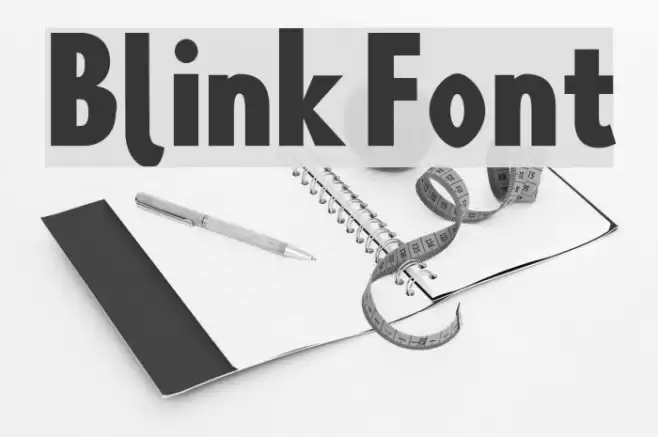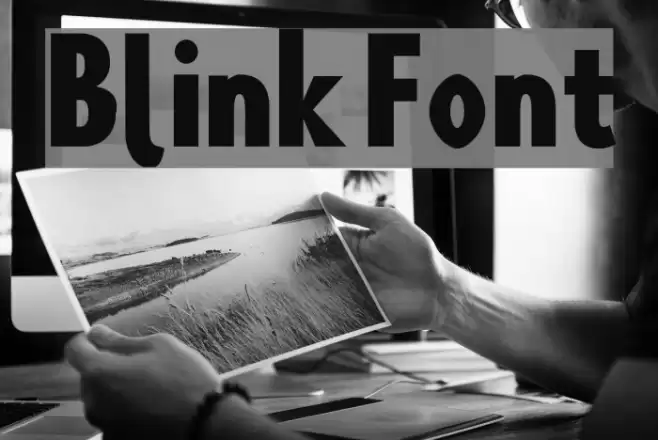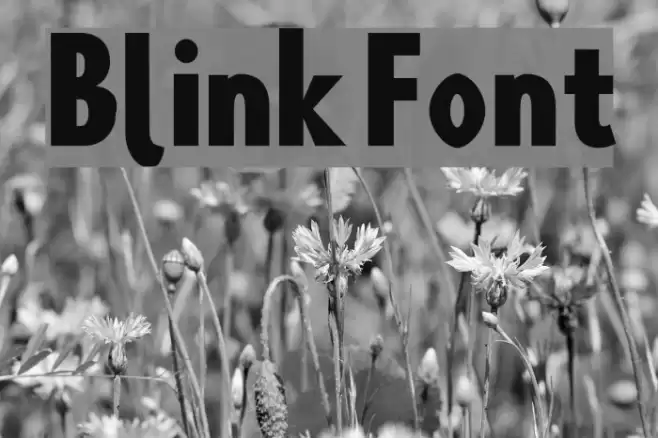
Blink Font
Blink Description
This font features bold, thick strokes with a strong presence, making it highly suitable for attention-grabbing headlines and impactful designs. The characters are well-defined with a consistent weight throughout, offering a modern and robust appearance. The uppercase and lowercase letters maintain a uniform style, while the numerals and special characters complement the overall bold aesthetic. Its clean lines and lack of serifs contribute to a contemporary look, ideal for digital and print media where clarity and emphasis are required.
A bold, modern sans-serif font with strong, thick strokes from Uncategorized fonts.
- Proposed Projects: Ideal for headlines, posters, advertisements, and branding materials.